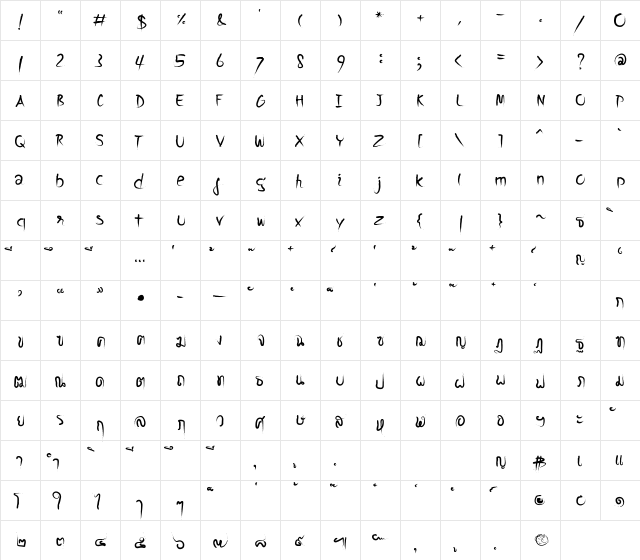
4711_AtNoon_ChineseBrush Regular
| Foundry | Netima Jesdapornpun |
Design Context for 4711_AtNoon_ChineseBrush Typeface
4711_AtNoon_ChineseBrush flows with the natural rhythm of handwritten lettering, making it ideal for designs that call for warmth and personal expression.
Font Pairing: Combine 4711_AtNoon_ChineseBrush with a simple geometric sans for maximum contrast — the tension between flowing curves and clean structure is a classic typographic pairing.
Pro Tip: Pair 4711_AtNoon_ChineseBrush with a clean sans-serif for supporting text. The contrast between fluid script and geometric structure creates an elegant typographic hierarchy.